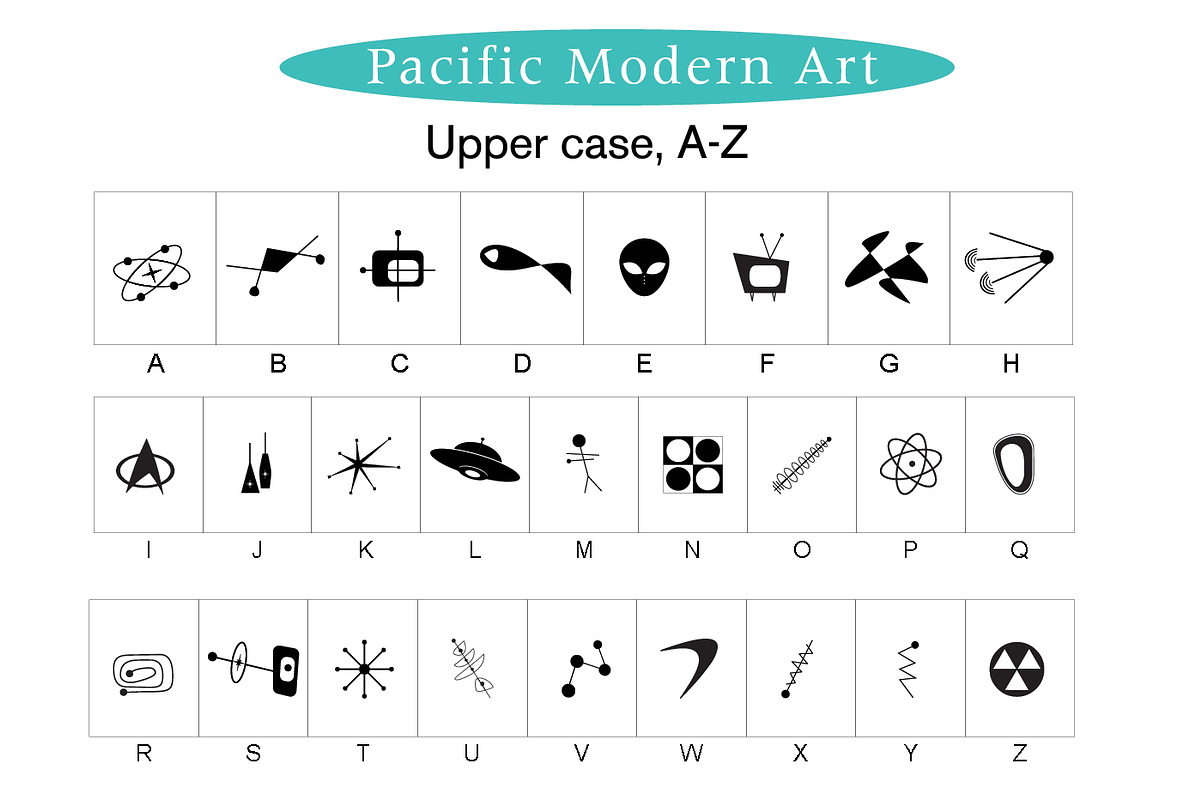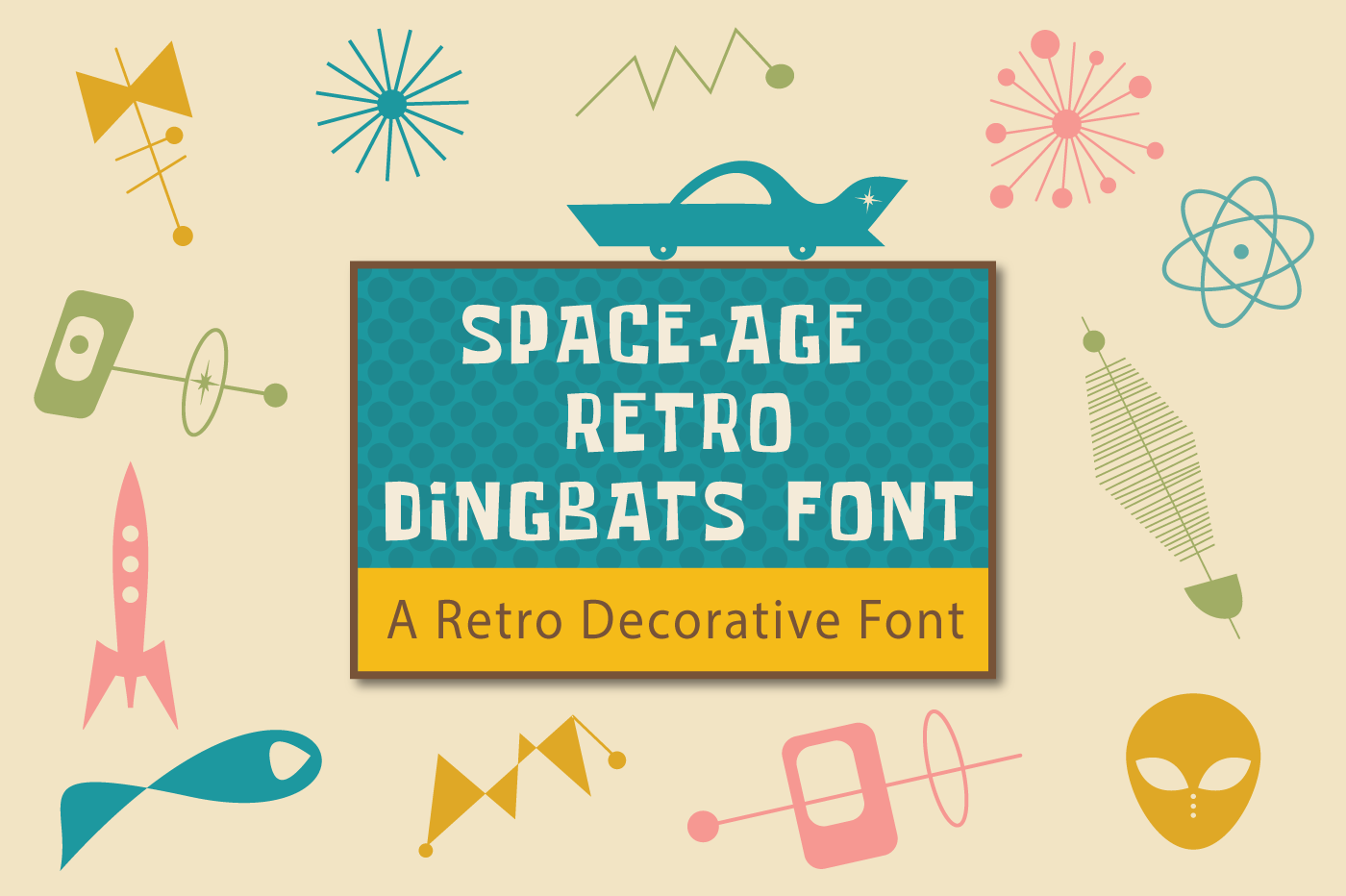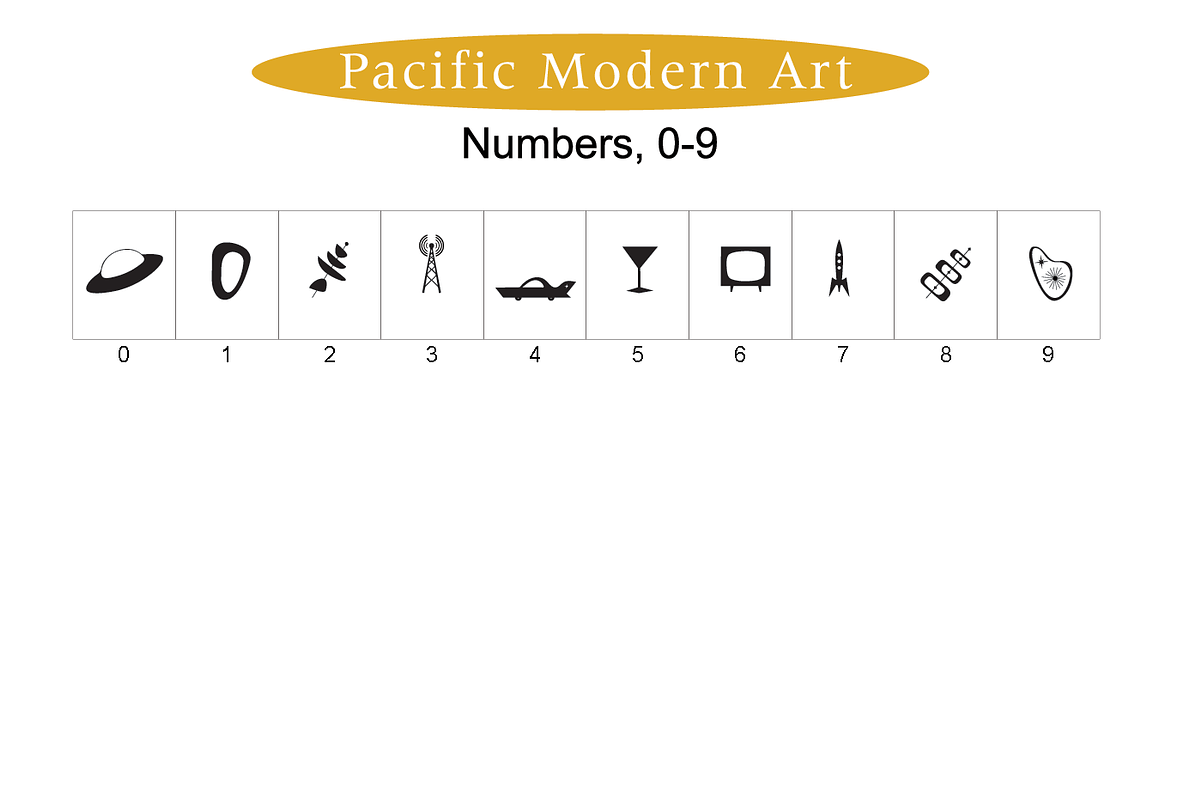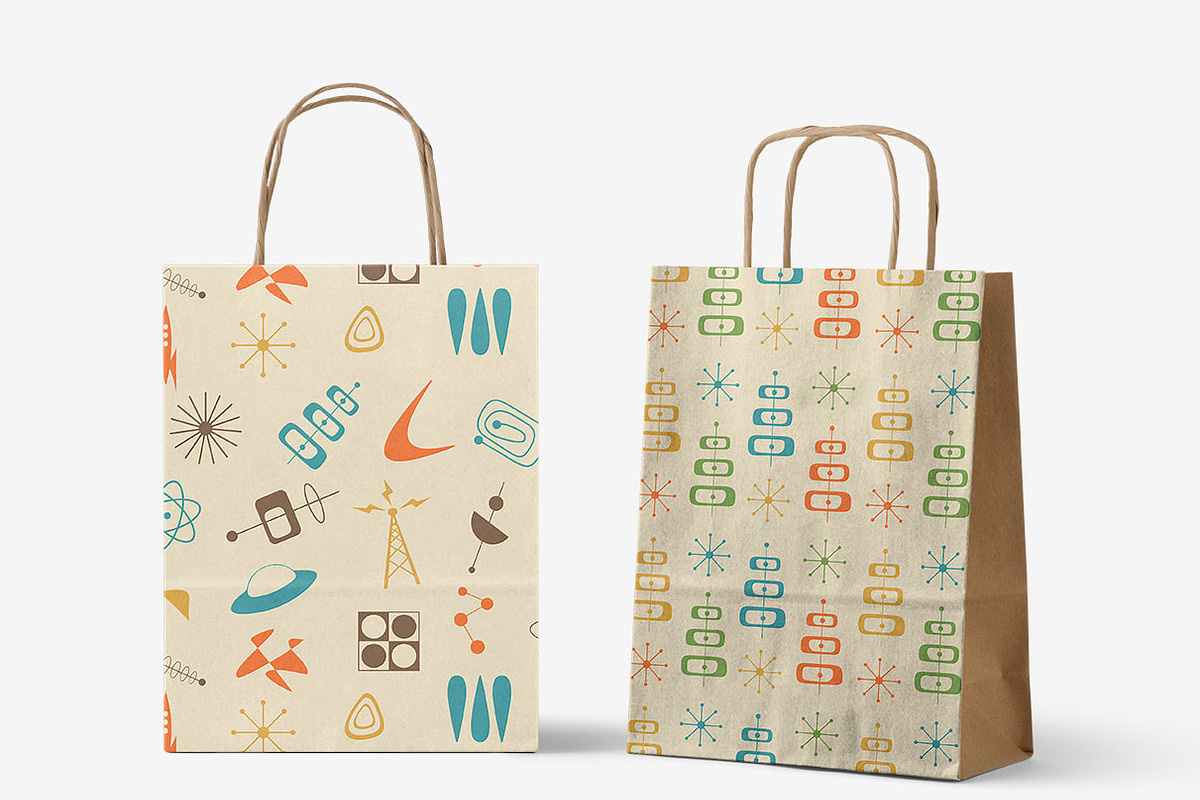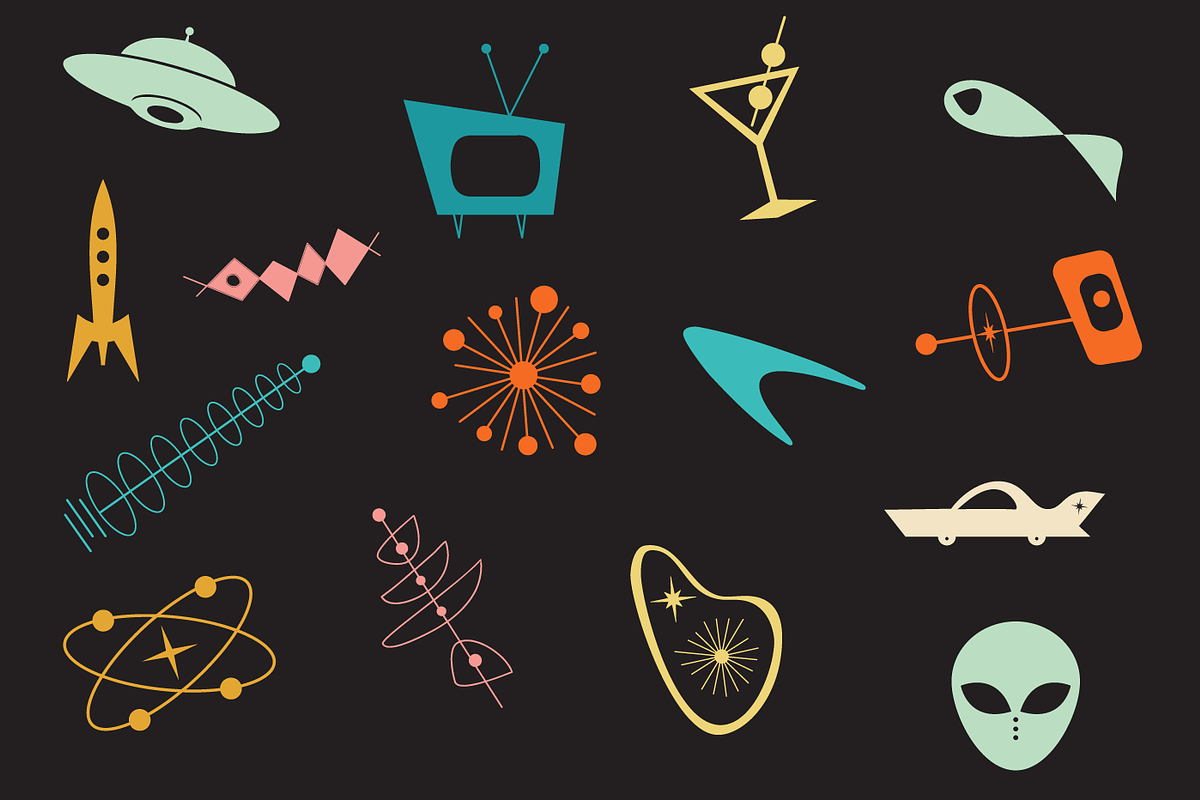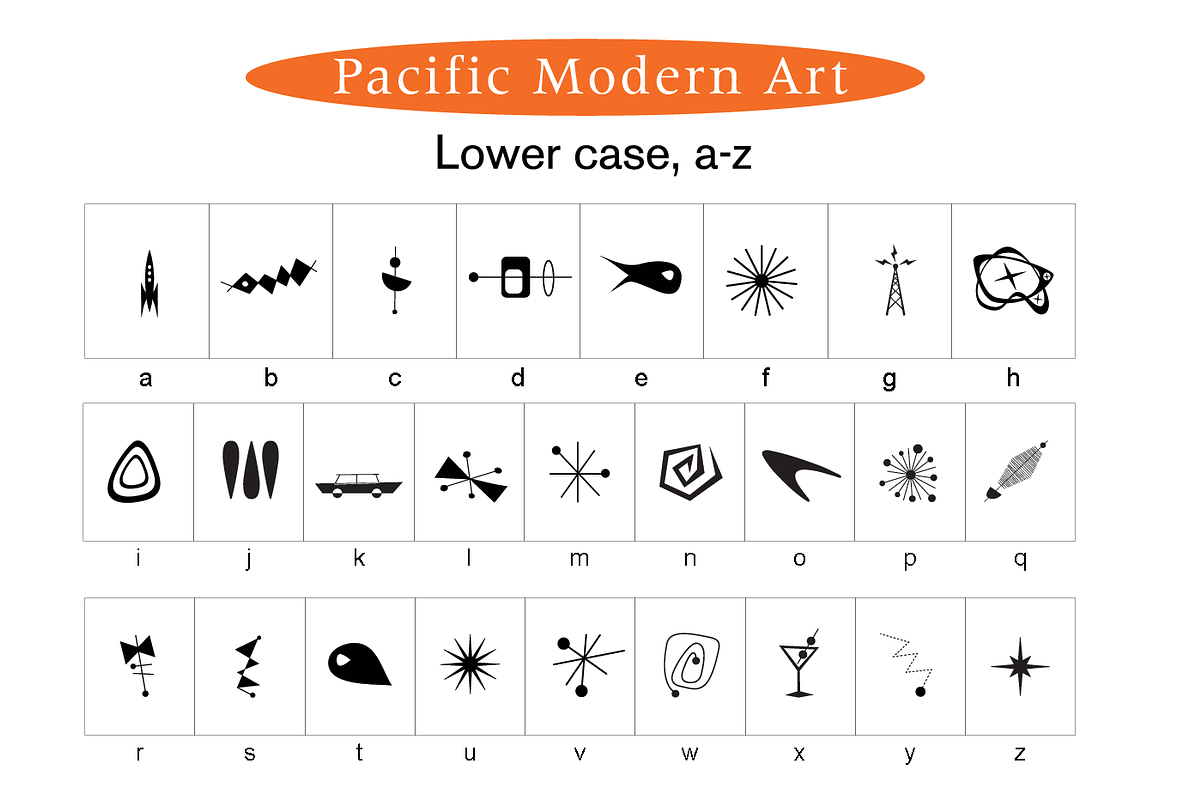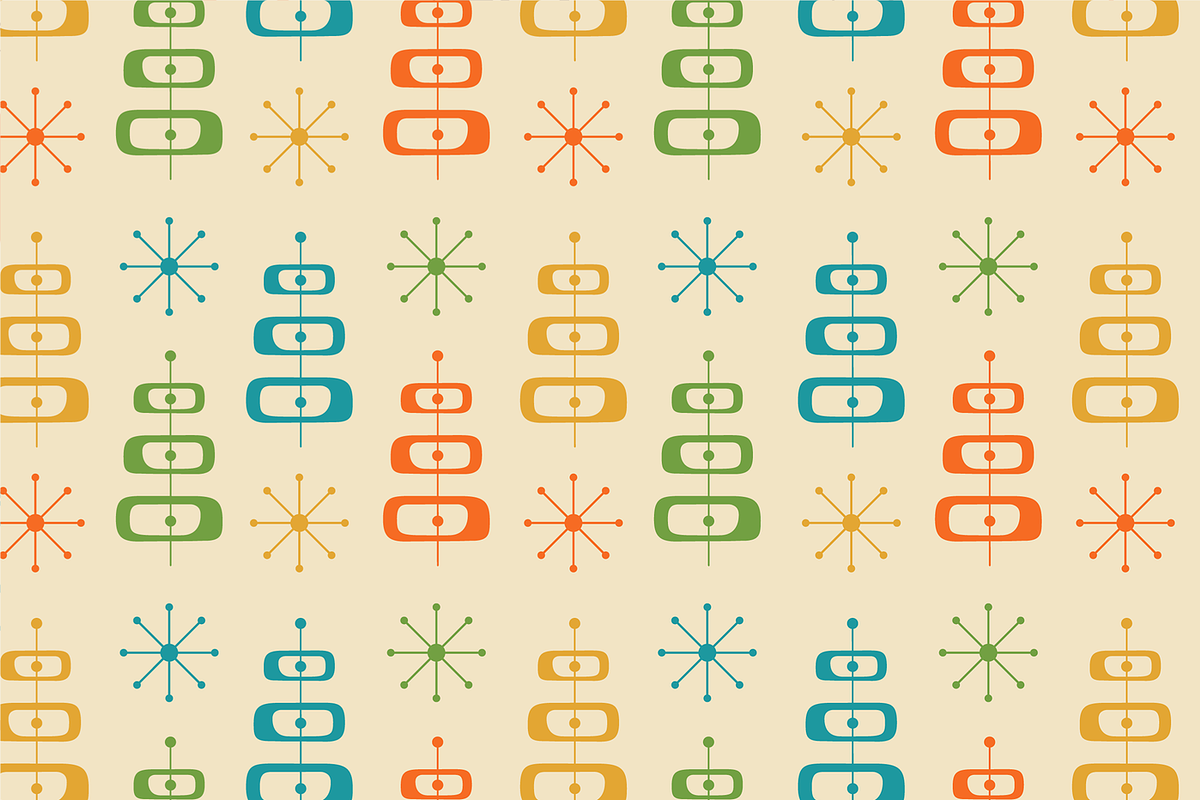
Space-Age Retro Dingbats Font
There's plenty of retro space-age fun in store with this all new symbols font! Using this, you might feel like you just stepped into a Jetsons cartoon episode! Space-Age Retro Dingbats Font includes 62 unique hand crafted characters in all. Included is the font in Opentype format, demo files, and bonus seamless patterns.